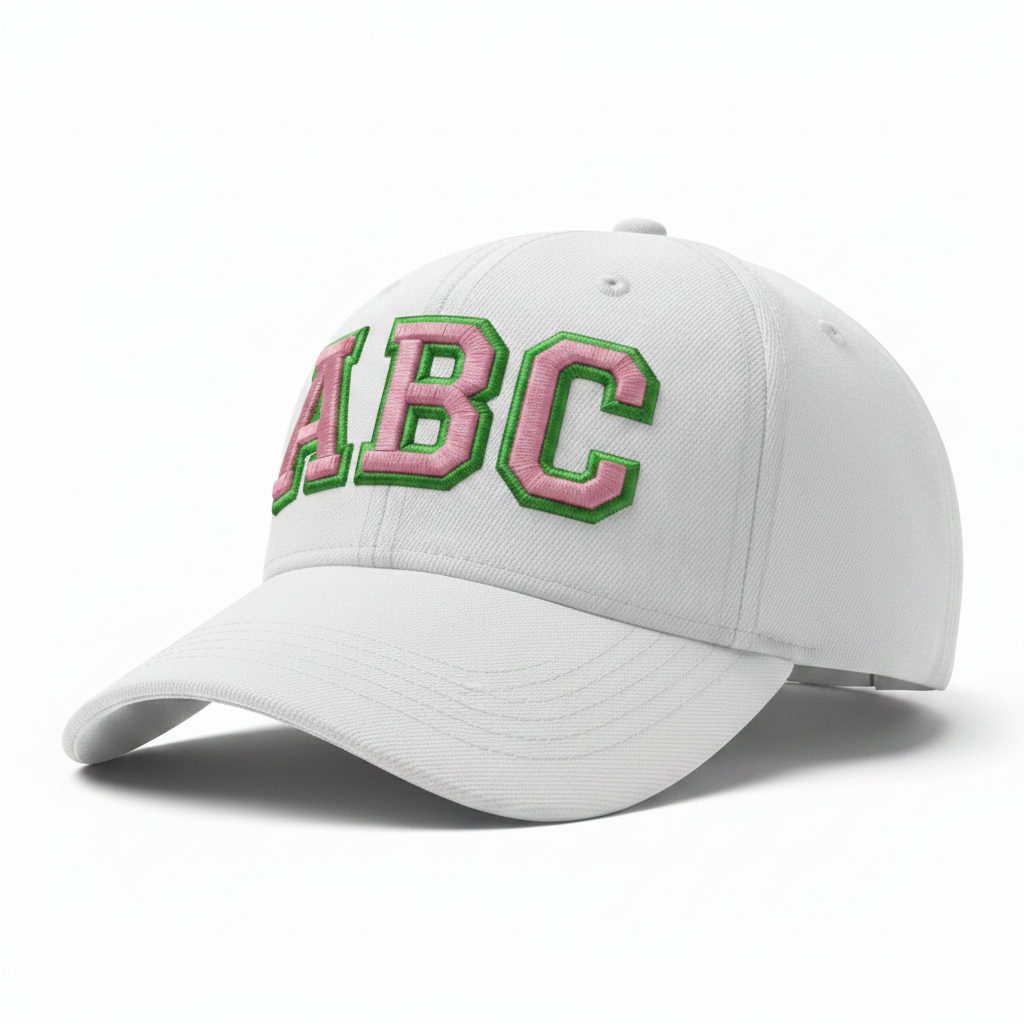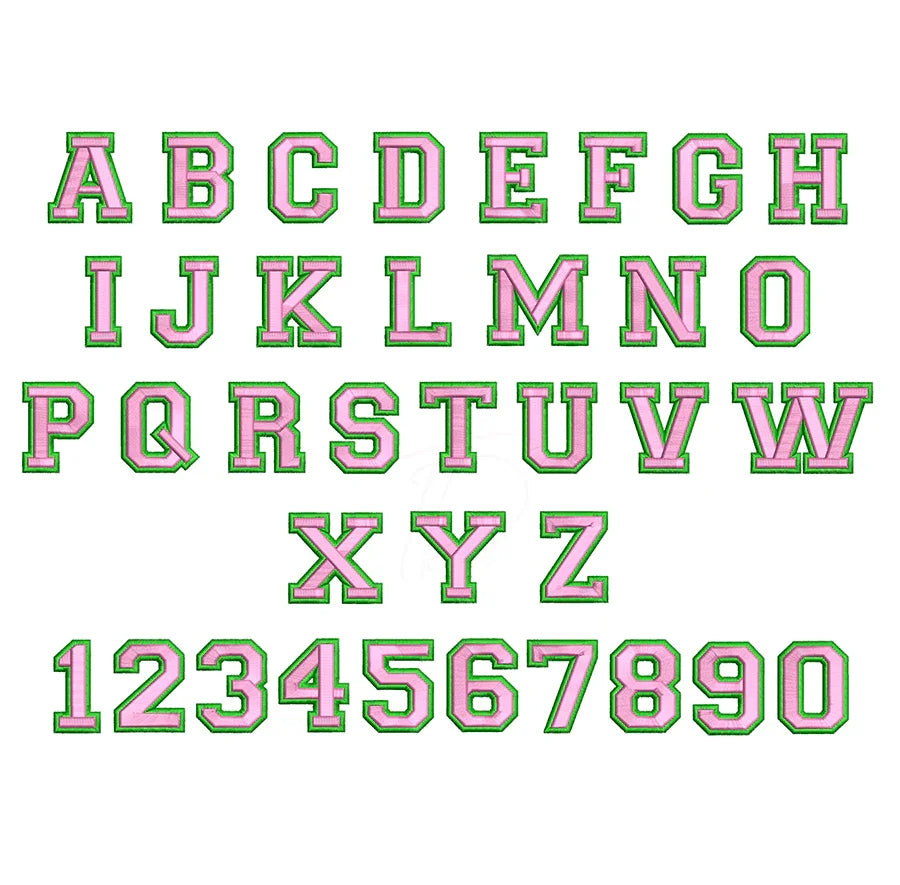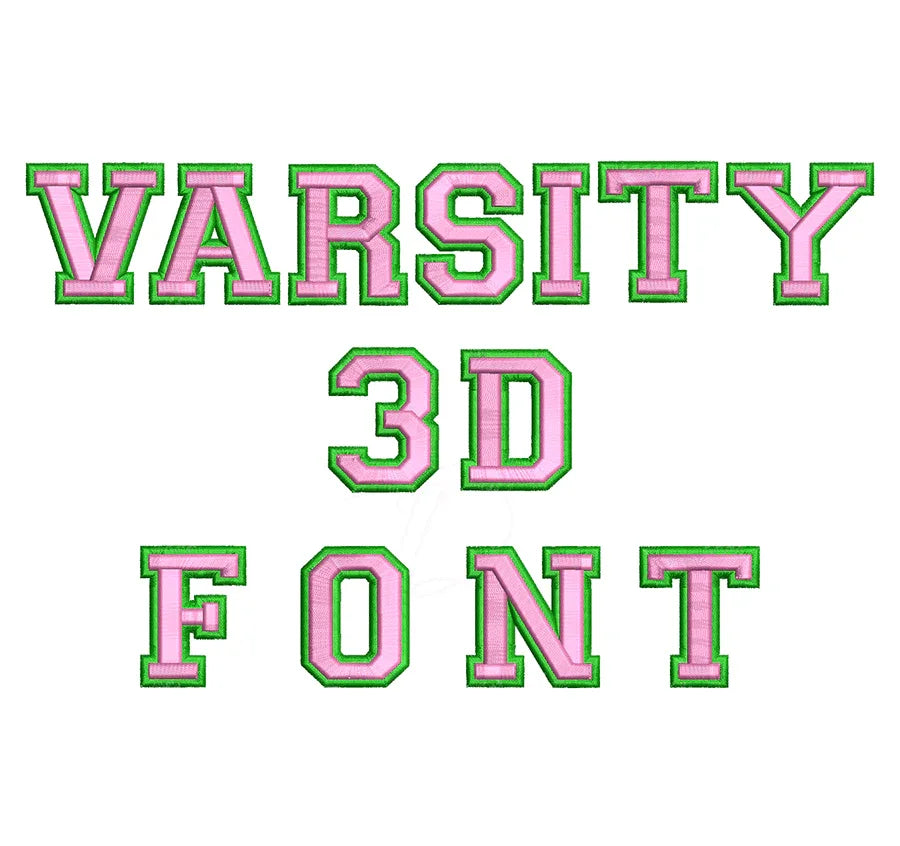
Varsity 3D Puff Embroidery Font – Bold, Raised & Ready to Stitch
Give your embroidery projects serious dimension with the Varsity 3D Puff Embroidery Font — a classic athletic-style alphabet engineered specifically for 3D puff foam embroidery. Whether you're personalizing snapback hats, baseball caps, varsity jackets, or team uniforms, this font delivers bold, raised lettering that stands out from the crowd.
✨ Why You'll Love It
- Strong varsity letterforms that look stunning in 3D puff foam
- Higher stitch density and underlay optimized for puff results
- Best results at 1" and above for maximum raised effect